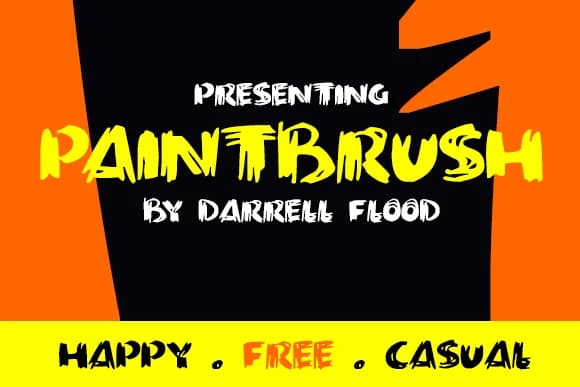
About Paintbrush Font
Paintbrush Font by Dadiomouse is a loose, energetic brush script with bold, textured strokes and organic paint splatters throughout its character set. The font captures the spontaneous quality of hand-painted lettering while maintaining readable consistency for both digital and print applications. Its thick, irregular letterforms convey genuine artistic personality without sacrificing legibility or clarity. This typeface excels for wedding invitation suites where couples seek an authentic, hand-painted aesthetic rather than polished precision. It's equally compelling for hand-lettered greeting cards that require personal, artisanal character families treasure. Small business branding benefits tremendously from its creative energy, boutiques, coffee shops, and indie brands communicate personality alongside professionalism through this font. DIY poster design, small-batch product packaging, and handmade shop signage showcase the font's ability to convey warmth, authenticity, and genuine artistic spirit. The bristly texture and organic paint splatter details add visual depth and movement to compositions, creating dimension that flat typefaces cannot achieve. These gestural qualities make the font particularly effective in contexts where hand-crafted perception matters to your audience. The font supports a full range of characters and glyphs, making it practical for professional applications despite its creative, spontaneous appearance. Bring expressive, authentic brush-lettered character to your next design project with Paintbrush Font on Creative Fabrica.
Paintbrush Font is a script font that shines as a display or heading face. Pair it with a clean sans-serif or serif font for body text β the contrast creates a clear hierarchy while the two styles stay balanced and easy to read.
Paintbrush Font
by Dadiomouse